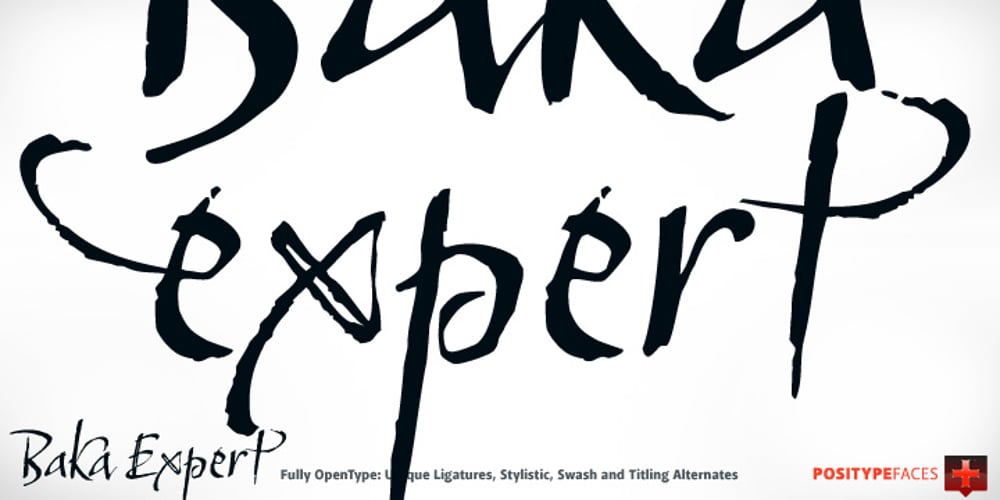
Baka Expert
Baka Expert font
Baka Expert Font Family was designed by Neil Summerour and published by Positype. Baka Expert contains 1 styles and family package options. Why Baka Expert? There’s actually a simple answer. The original Baka was done as an experiment of sorts. I wanted to quickly capture a rough, frenetic handwriting style that broke normal conventions. Commercially, it was successful, received some accolades … but I wasn’t completely satisfied, so I went back to the master art and the lettering explorations and produced Baka Too. This addressed some of the line items I wanted to refine in Baka. I liked it. Each font has been out for a few years now, and I have seen them in use. I’m very critical of my work, and I could still see things—modulations of strokes, angle of the nib, ink swell, and so on—that I wanted to change, refine, and reorder. For me, it is typographic indulgence, but I wanted to take this handwriting ‘font’ and turn it into a robust ‘typeface.’ So I did just that and a bit more by adding back more of my initial flourish concepts; attaining tighter, consistent control of the modulation; optimizing points; adding titling options; and expanding the character language set. Baka and Baka Too had to exist to produce this entirely new re-envisioning of an old friend … and they all play well together 🙂